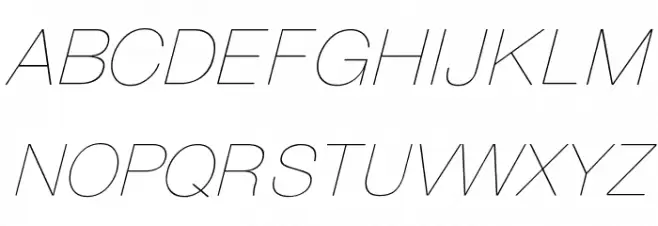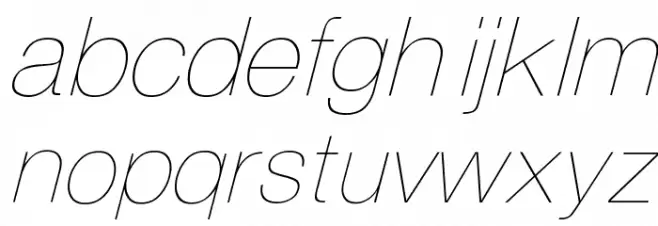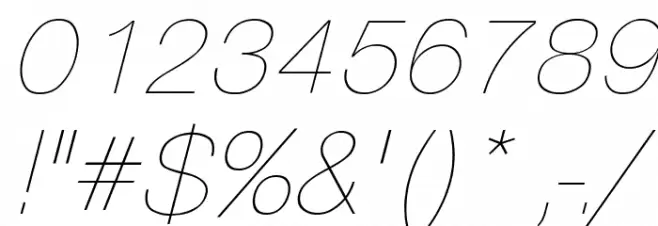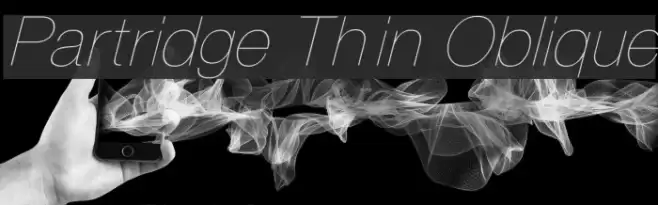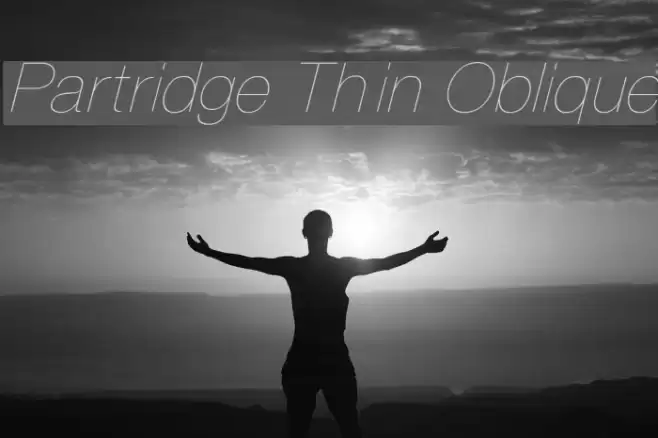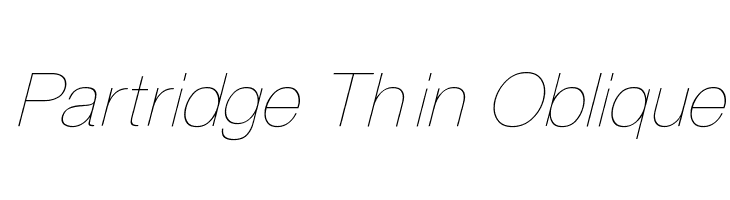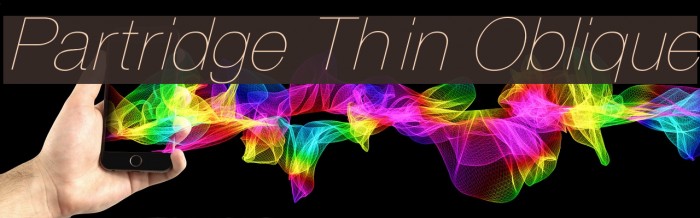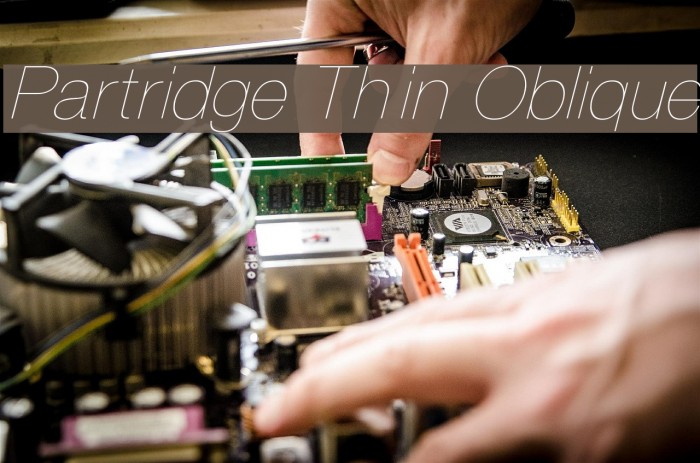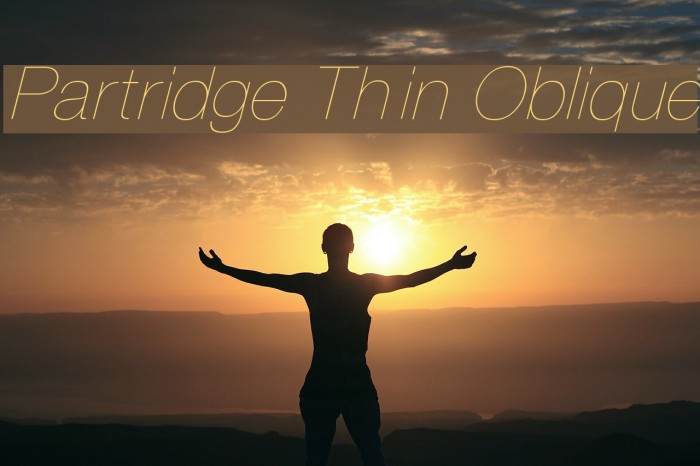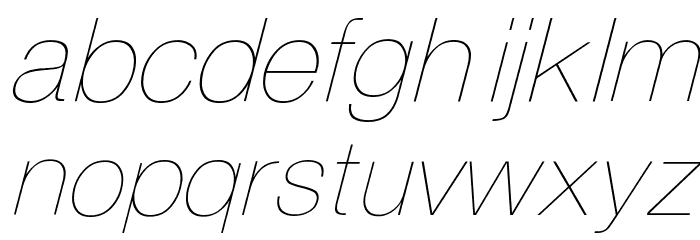
Partridge Thin Oblique
This font features a sleek and modern design with thin, oblique characters that convey a sense of elegance and sophistication. The letters are elongated and slightly slanted, giving them a dynamic and forward-moving appearance. The thin strokes contribute to a light and airy feel, making it suitable for minimalist design projects. The uniformity in stroke width and the absence of serifs enhance its contemporary look. This font is ideal for projects that require a clean and refined aesthetic, such as fashion branding, high-end product packaging, and modern editorial layouts.
A sleek, thin, and oblique font with a modern and elegant style.
- Proposed Projects: Fashion branding, high-end product packaging, modern editorial layouts.
- Weight: Light